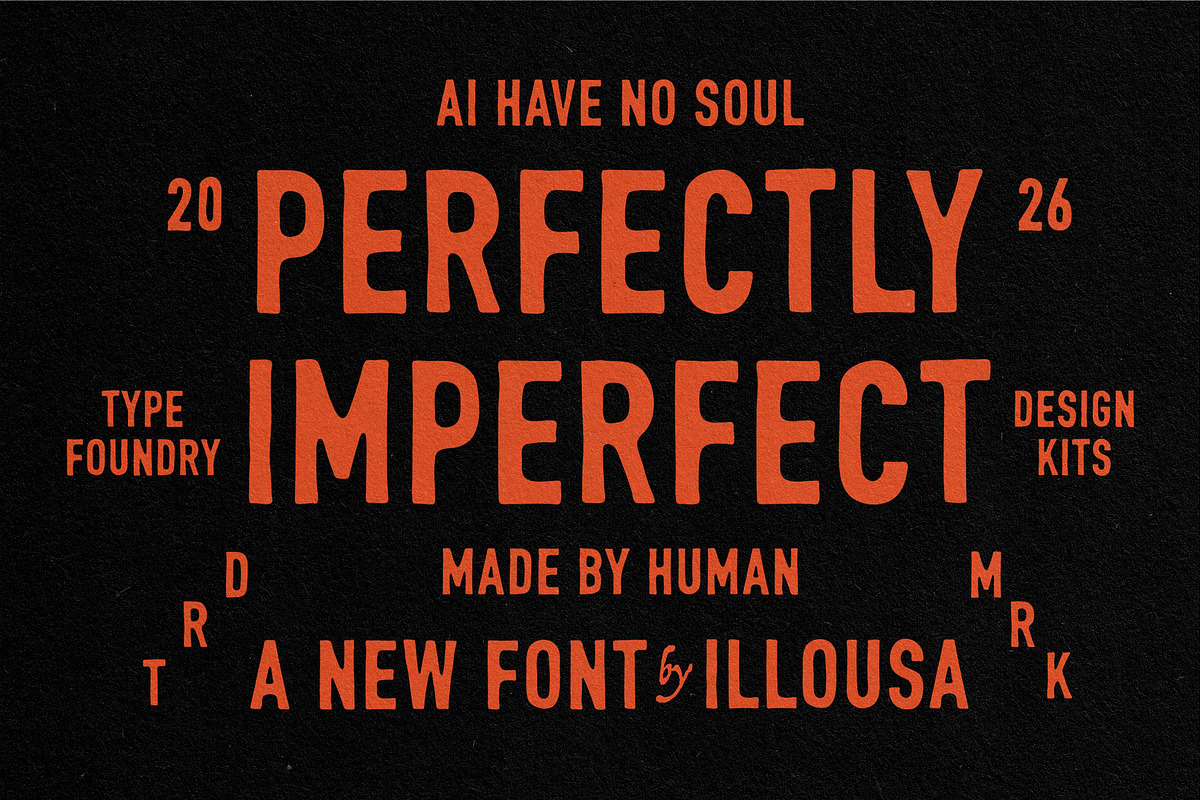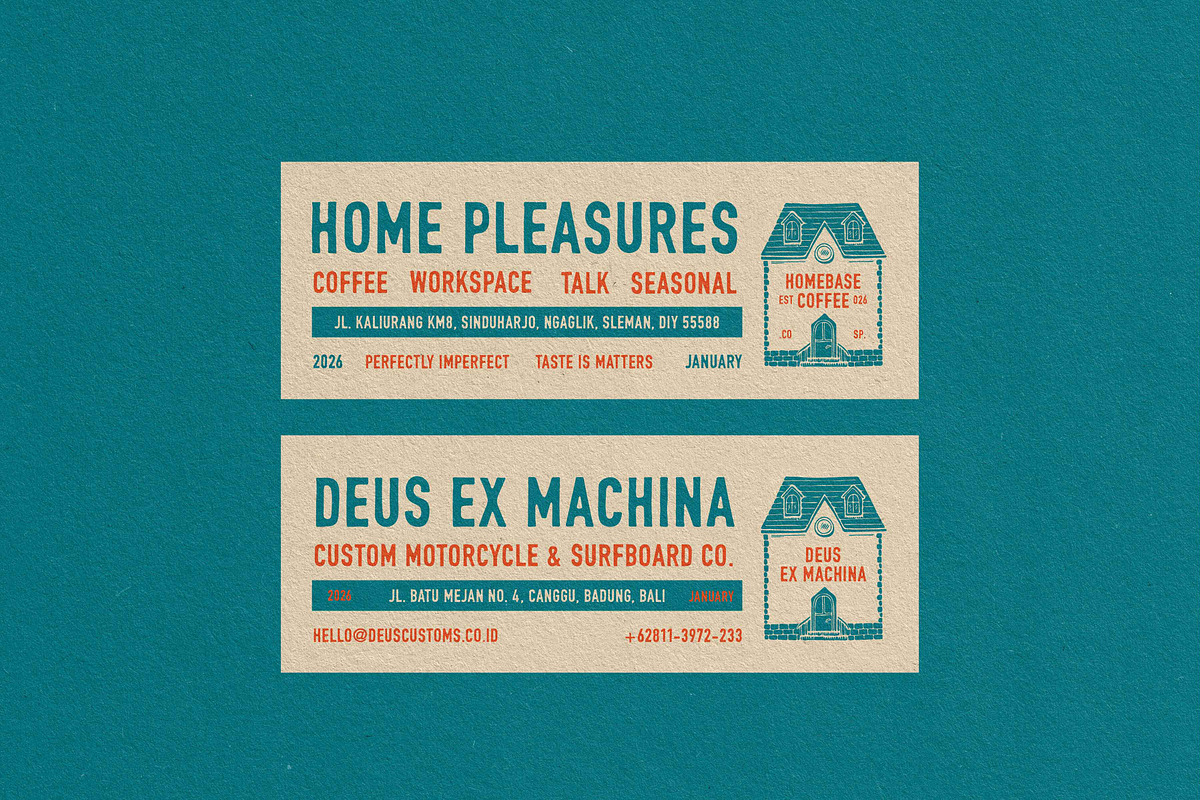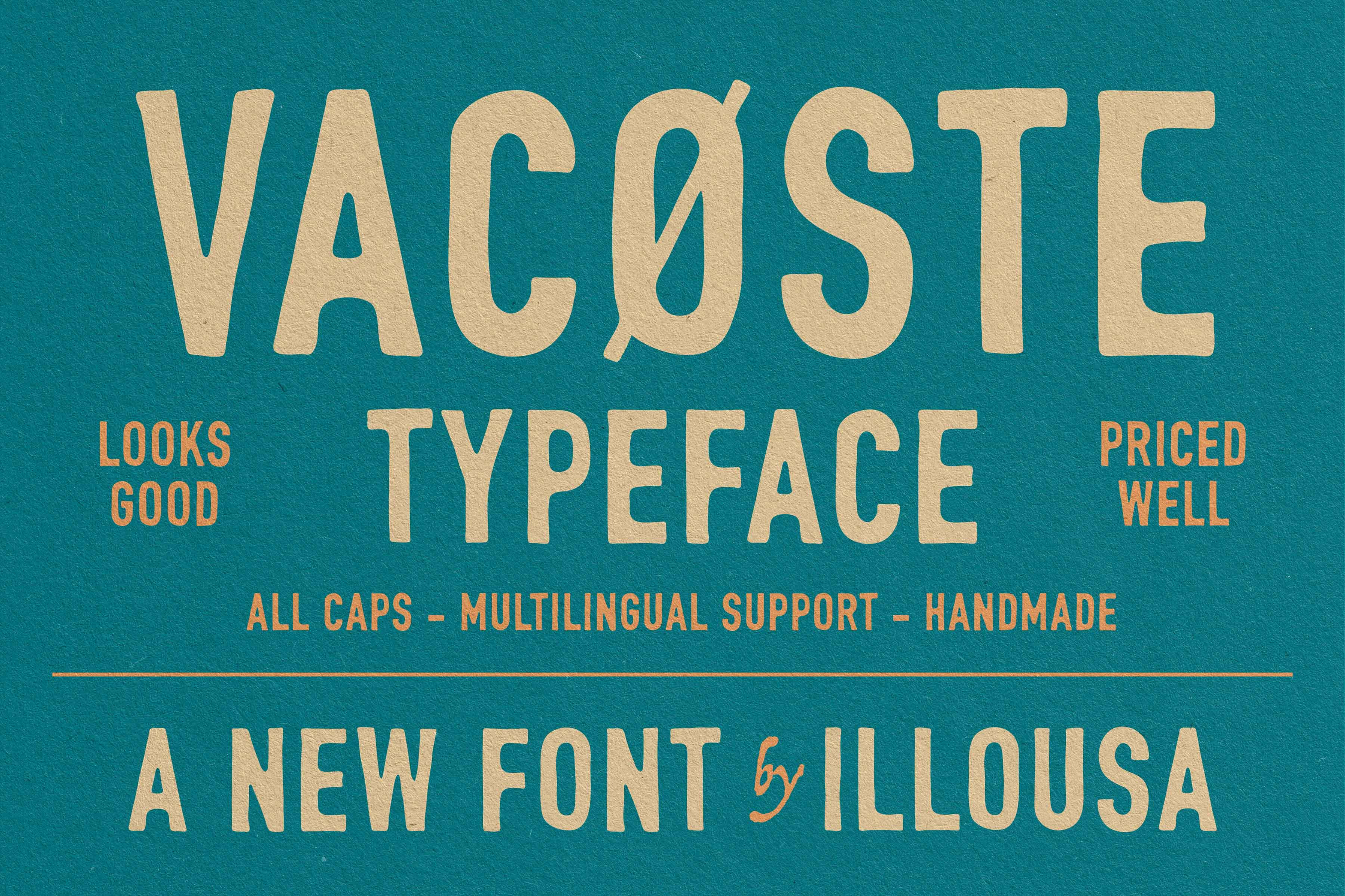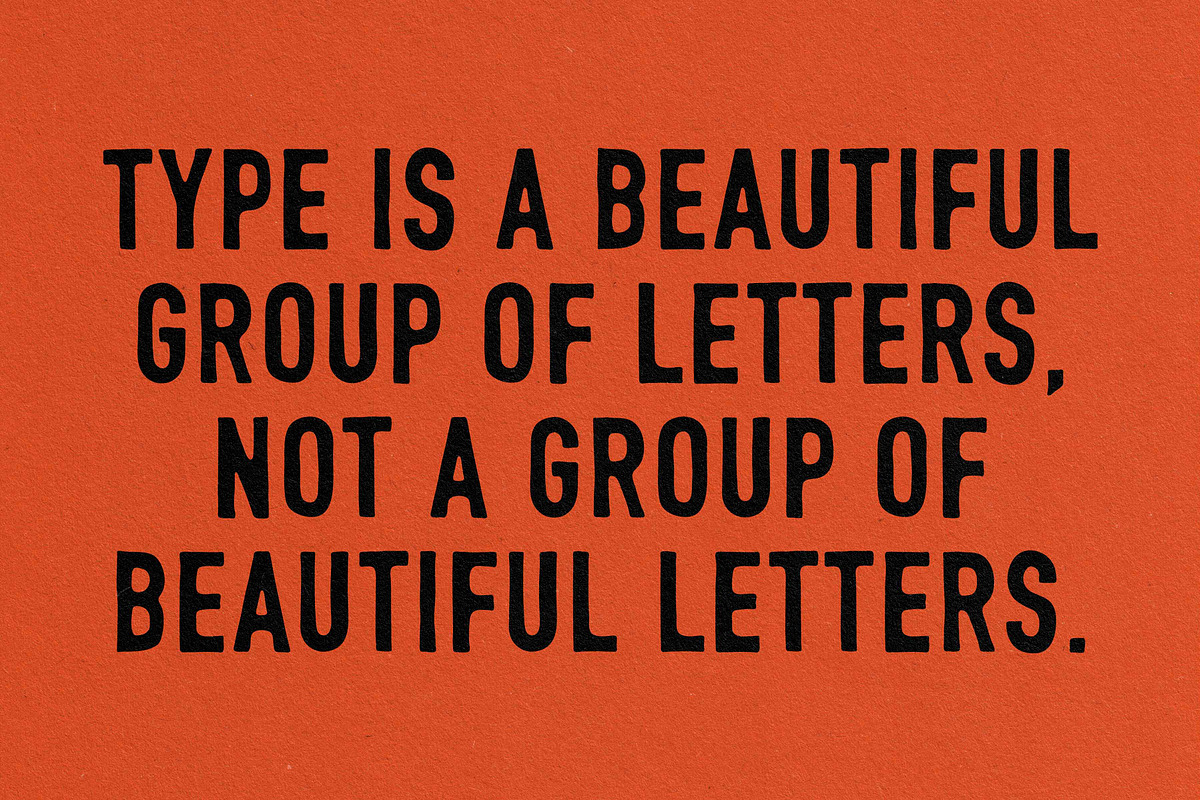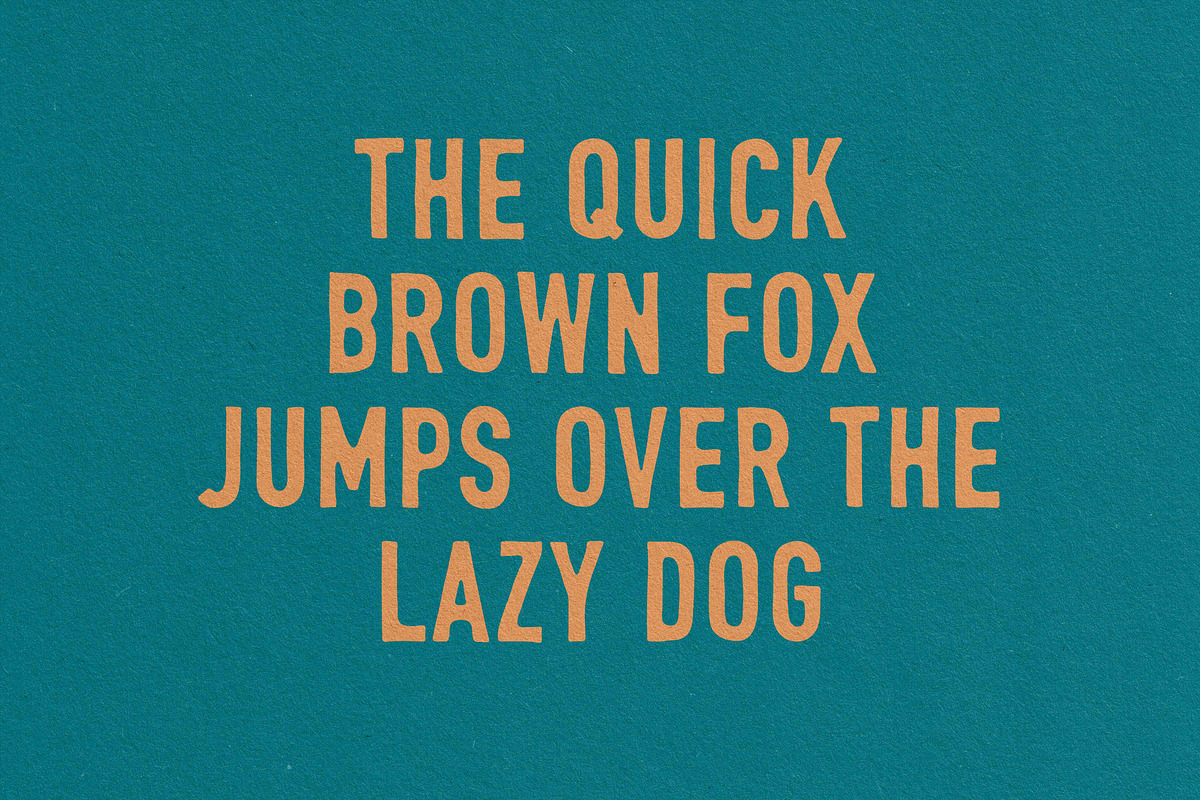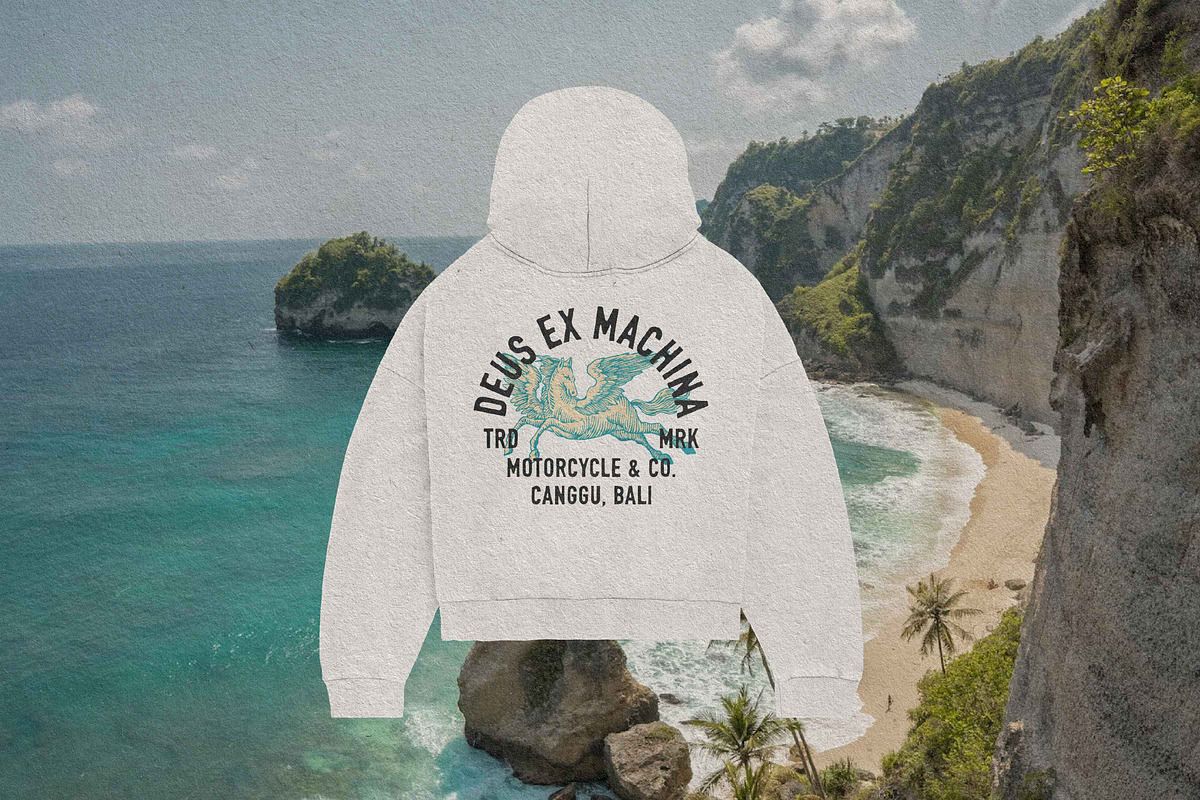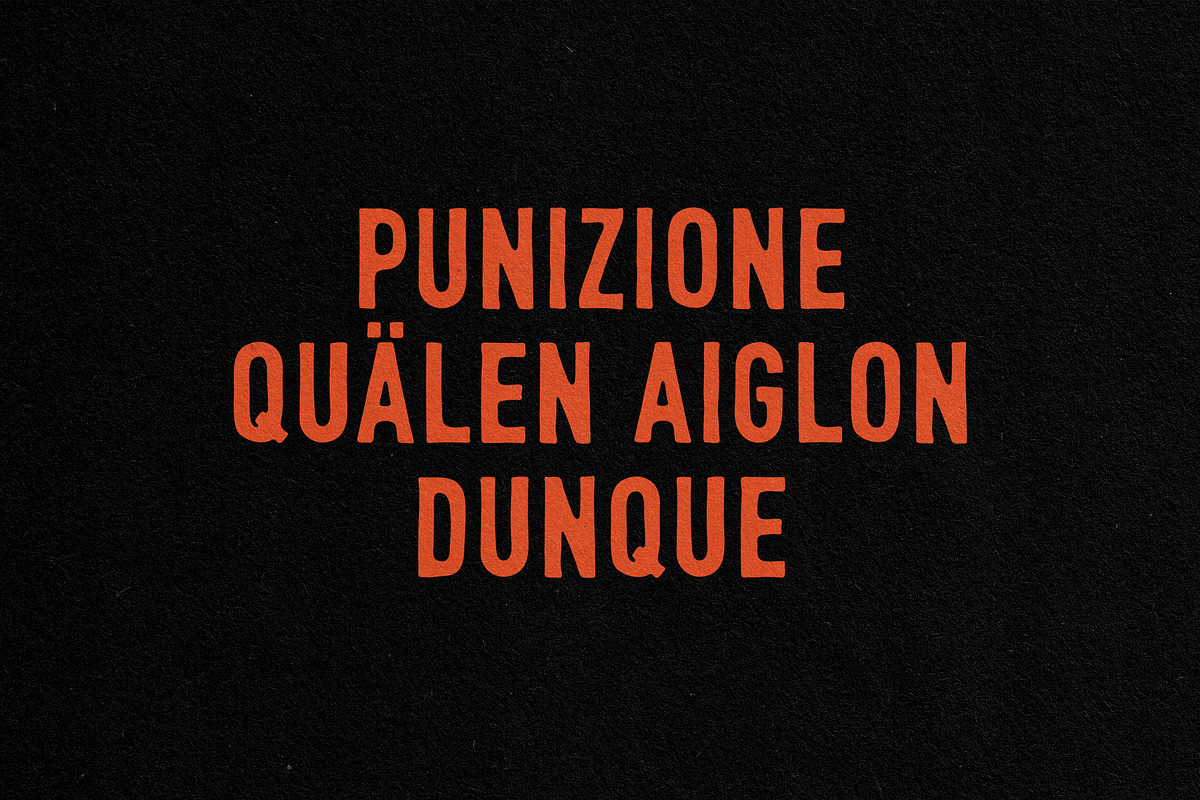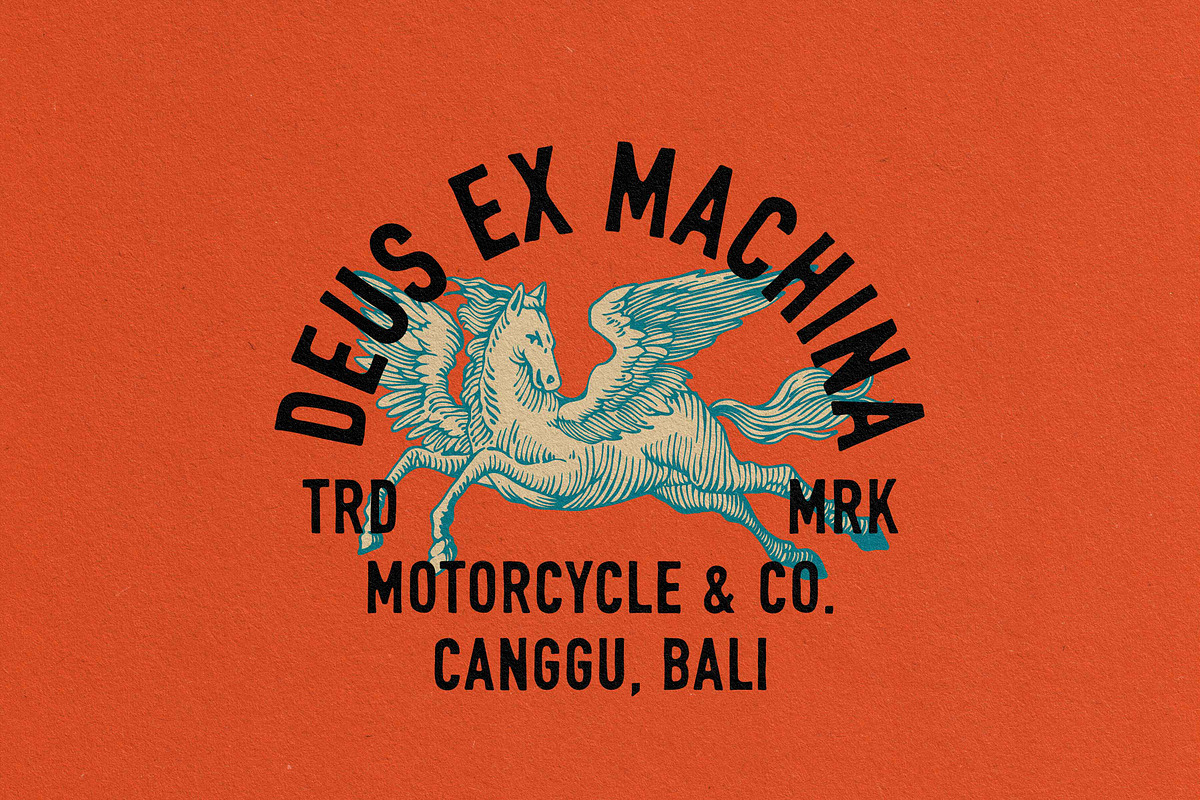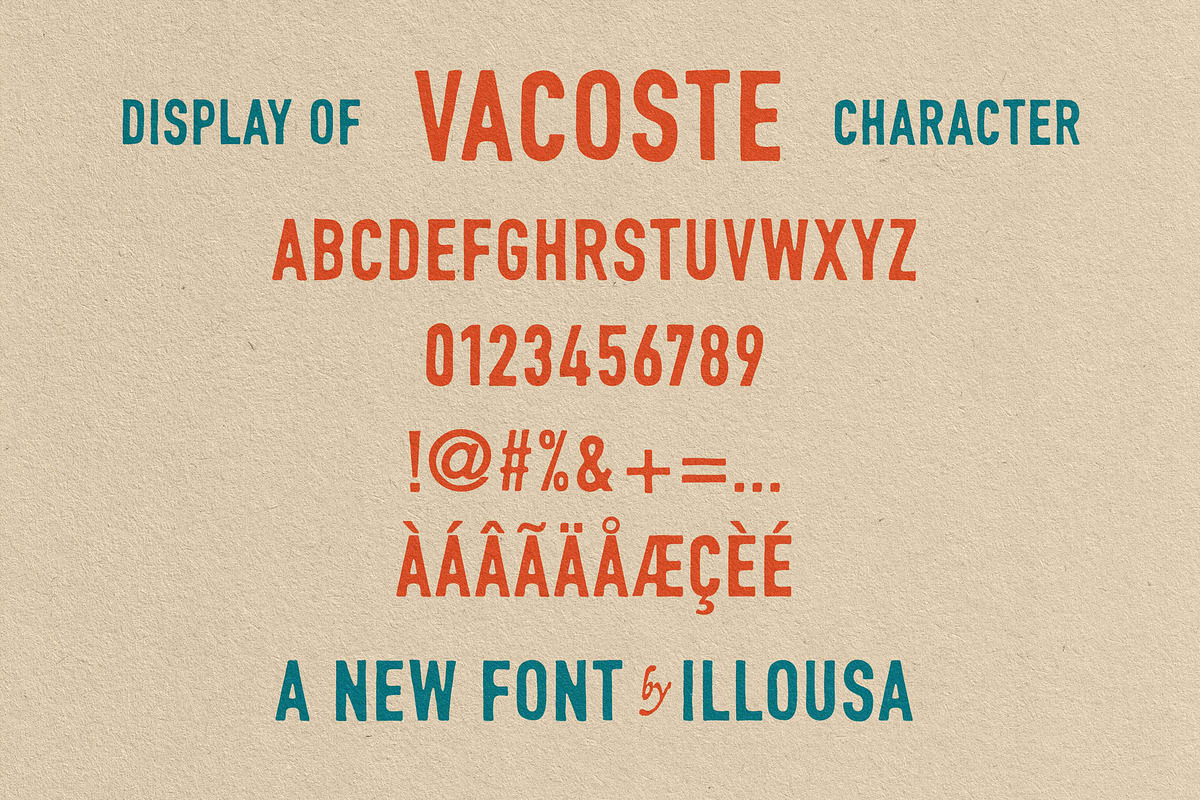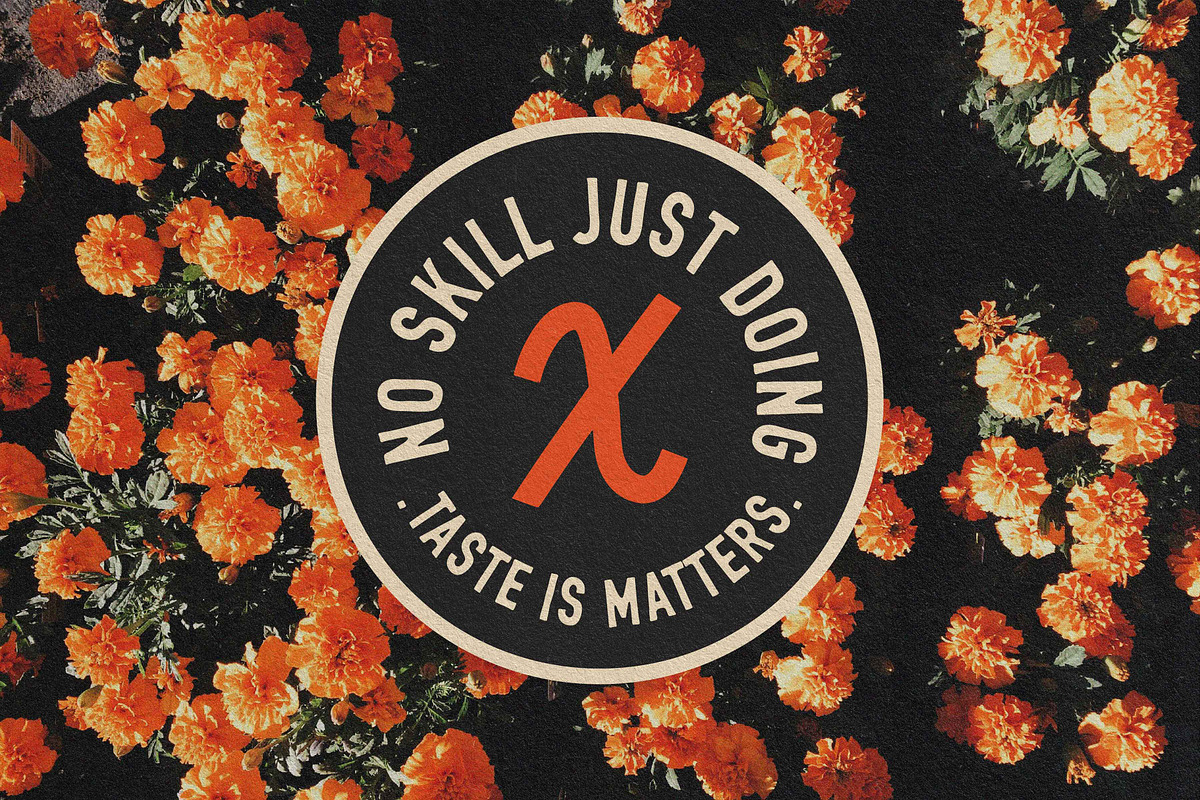
VACOSTE | Modern Vintage Font
VACOSTE | Bold Rustic Sans Serif Revive the soul of classic craftsmanship. Vacoste is a tall, commanding all-caps typeface designed by human hands to bring warmth back to your screen. Captured from the raw texture of a brush hitting wood, its "perfectly imperfect" edges offer an authentic, handmade aesthetic that stands out from cold, generic fonts.
Why it’s a Must-Have:
- The Human Touch: Built on intentional imperfections for a custom-made feel.
- High Impact: A "heavy lifter" for heritage branding, industrial kits, and bold headlines.
- Global Ready: Includes full multilingual support for international consistency.
Perfect For: Streetwear, travel posters, artisanal packaging, and bold social media graphics.